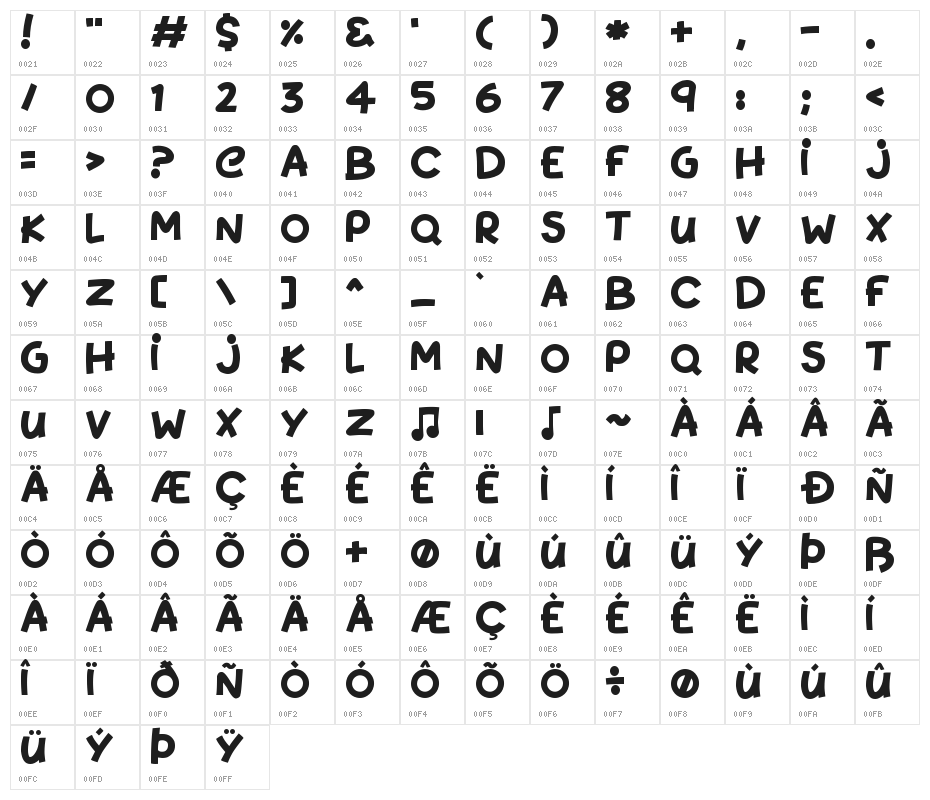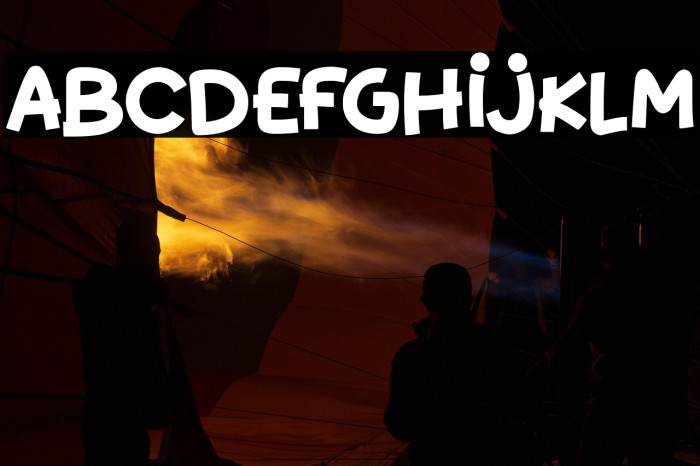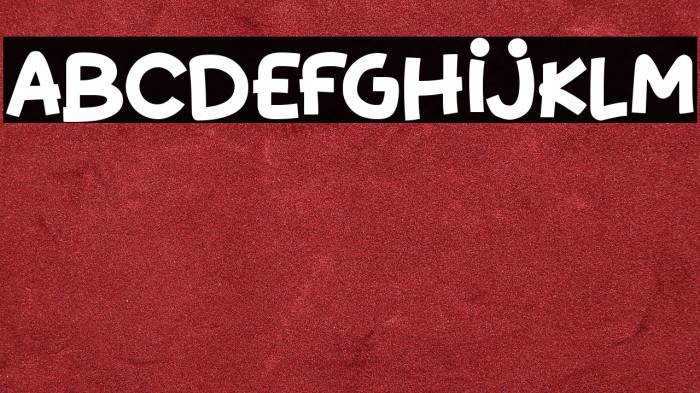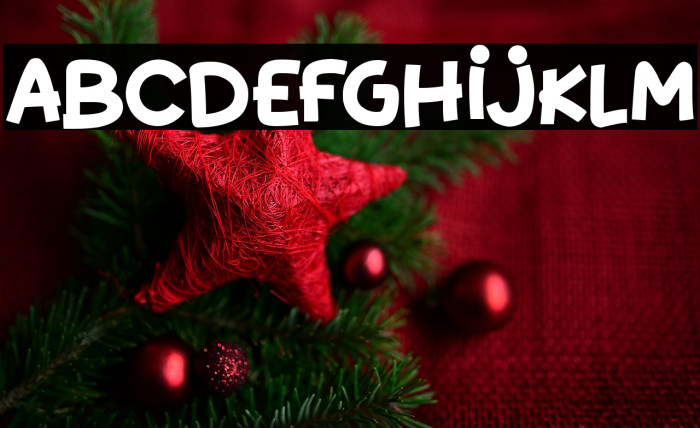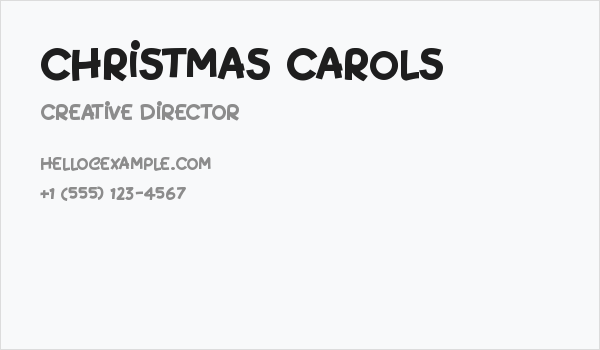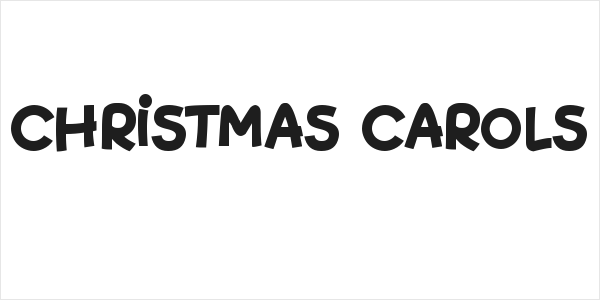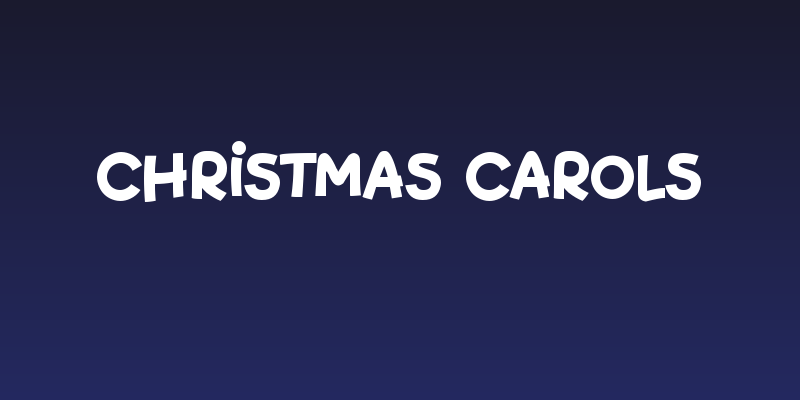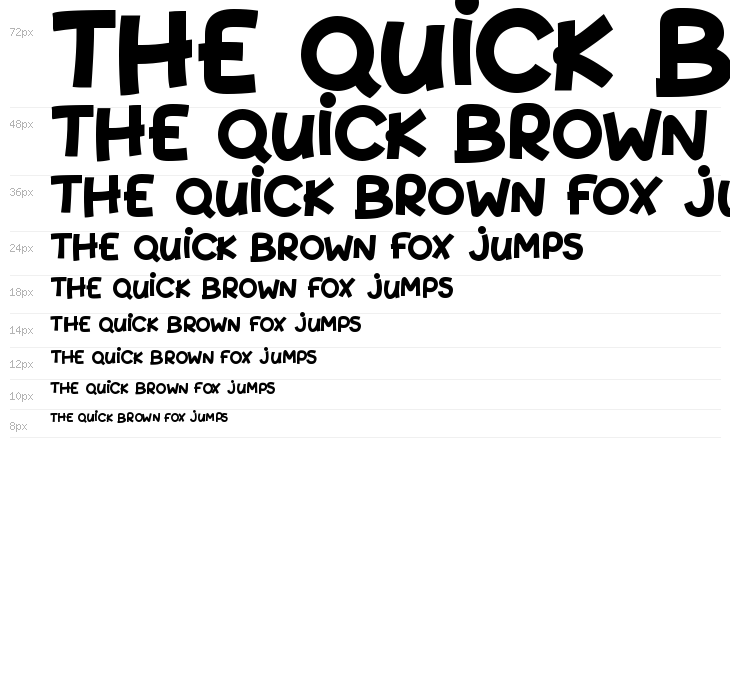
Christmas Carols Font
Christmas Carols Description
This font features a playful and whimsical style, characterized by its bold and rounded letterforms. The letters have a hand-drawn feel, with irregular curves and a slightly uneven baseline that adds to its charm. The uppercase and lowercase letters maintain a consistent style, with a noticeable bounce in the lowercase set. Numbers and special characters follow the same playful design, making them easily recognizable. The overall appearance is friendly and approachable, making it suitable for festive and informal applications.
| Proposed Projects | Ideal for holiday-themed designs, children's books, greeting cards, and playful branding. |